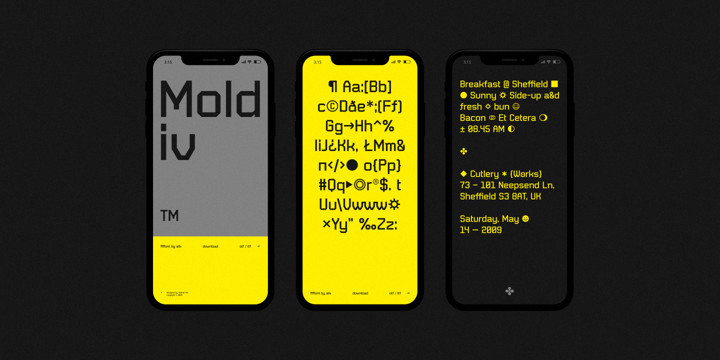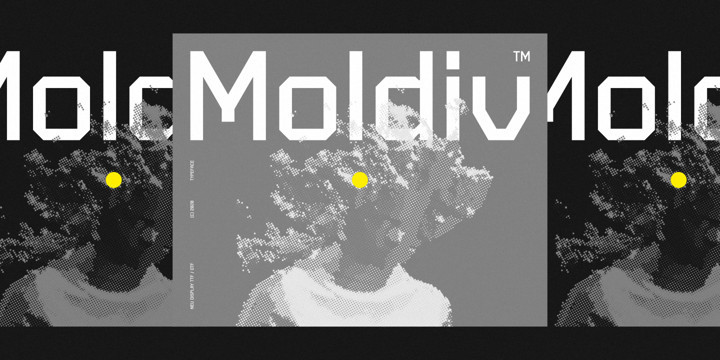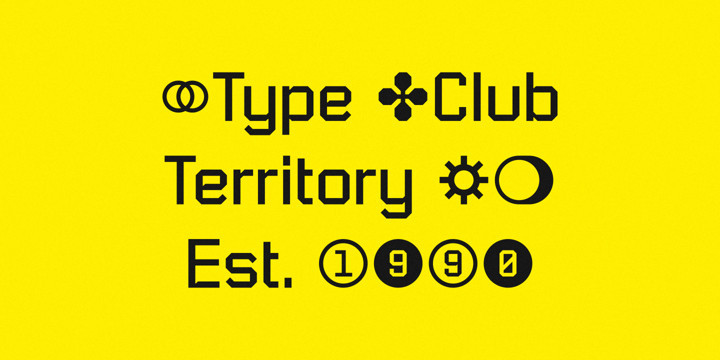
Moldiv Font
Moldiv FontMoldiv is a sans serif display typeface with geometric appearance. Its clean and angular shapes provide a futuristic and robust design. Moldiv consists of a single weight, an extended European character set, and kerning and symbols were manually edited. It has a timeless style which is great for display purposes, especially for headlines, posters, magazines, book covers, logos, and much more.